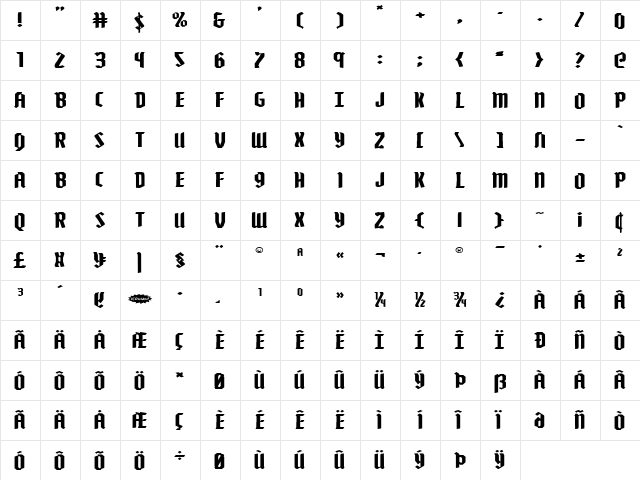
Zollern Extra-Expanded Extra-Expanded
Design Context for Zollern Extra-Expanded Typeface
Zollern Extra-Expanded is a composed and adaptable typeface that performs quietly and consistently across a wide range of design contexts.